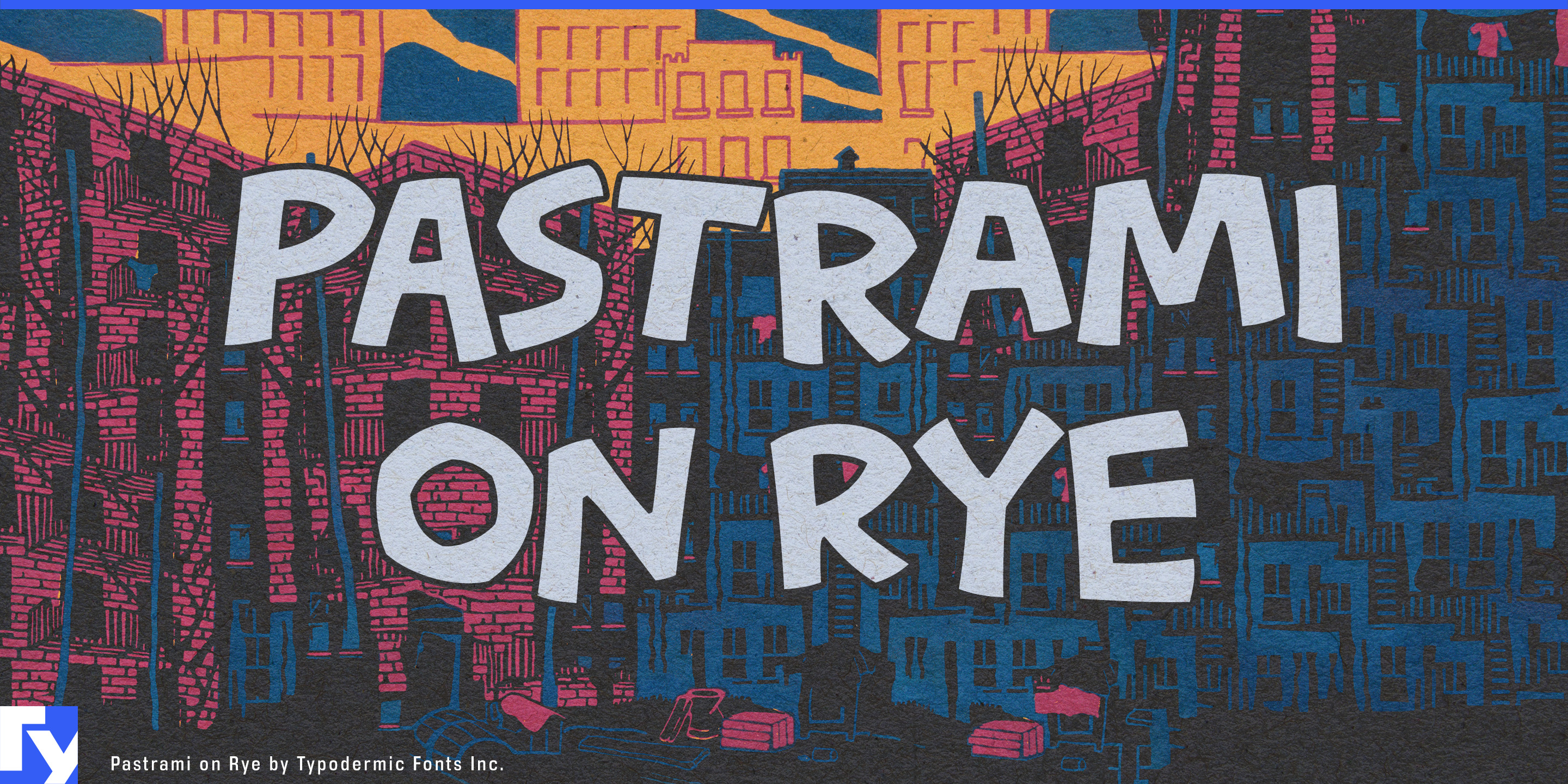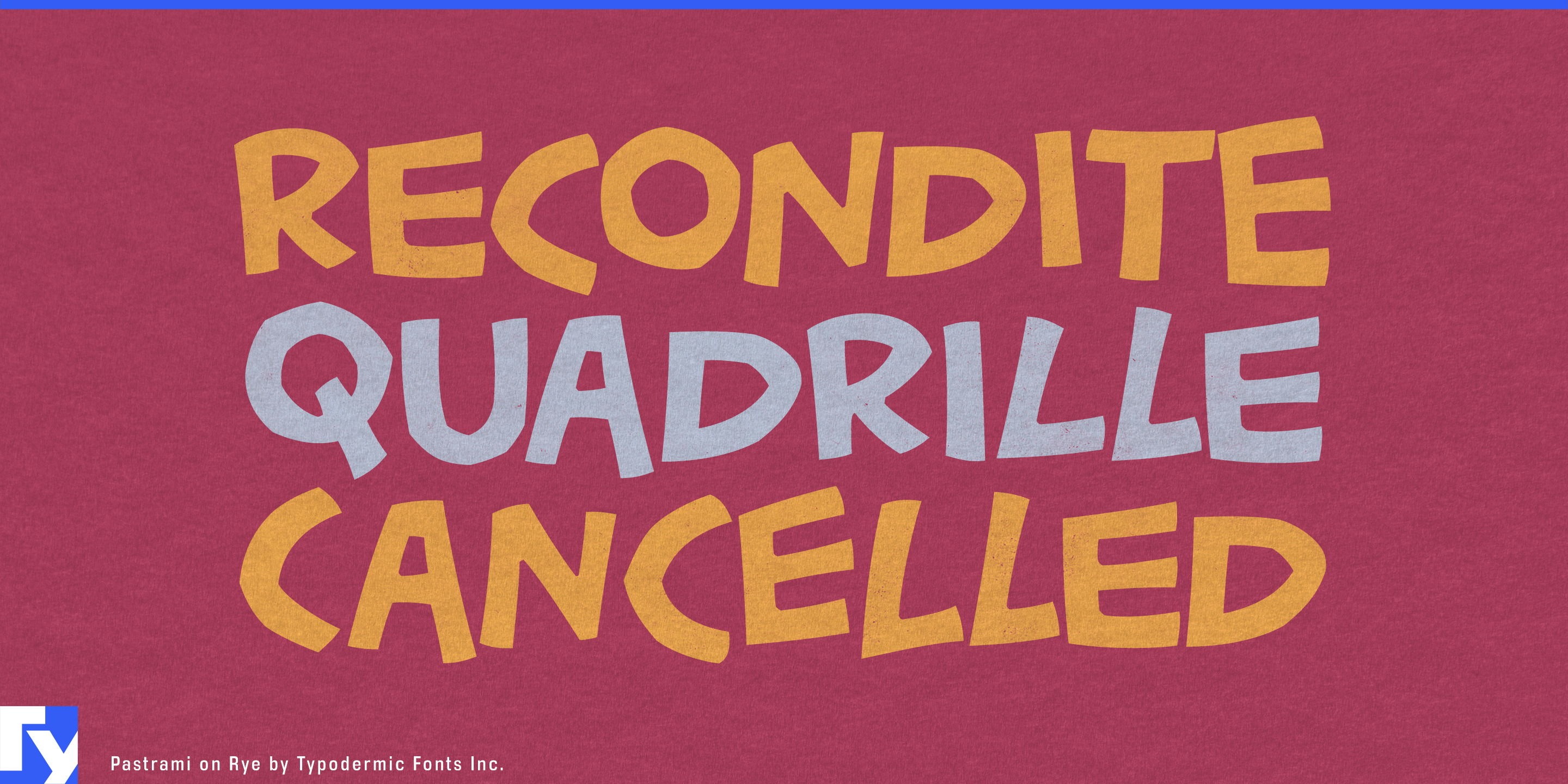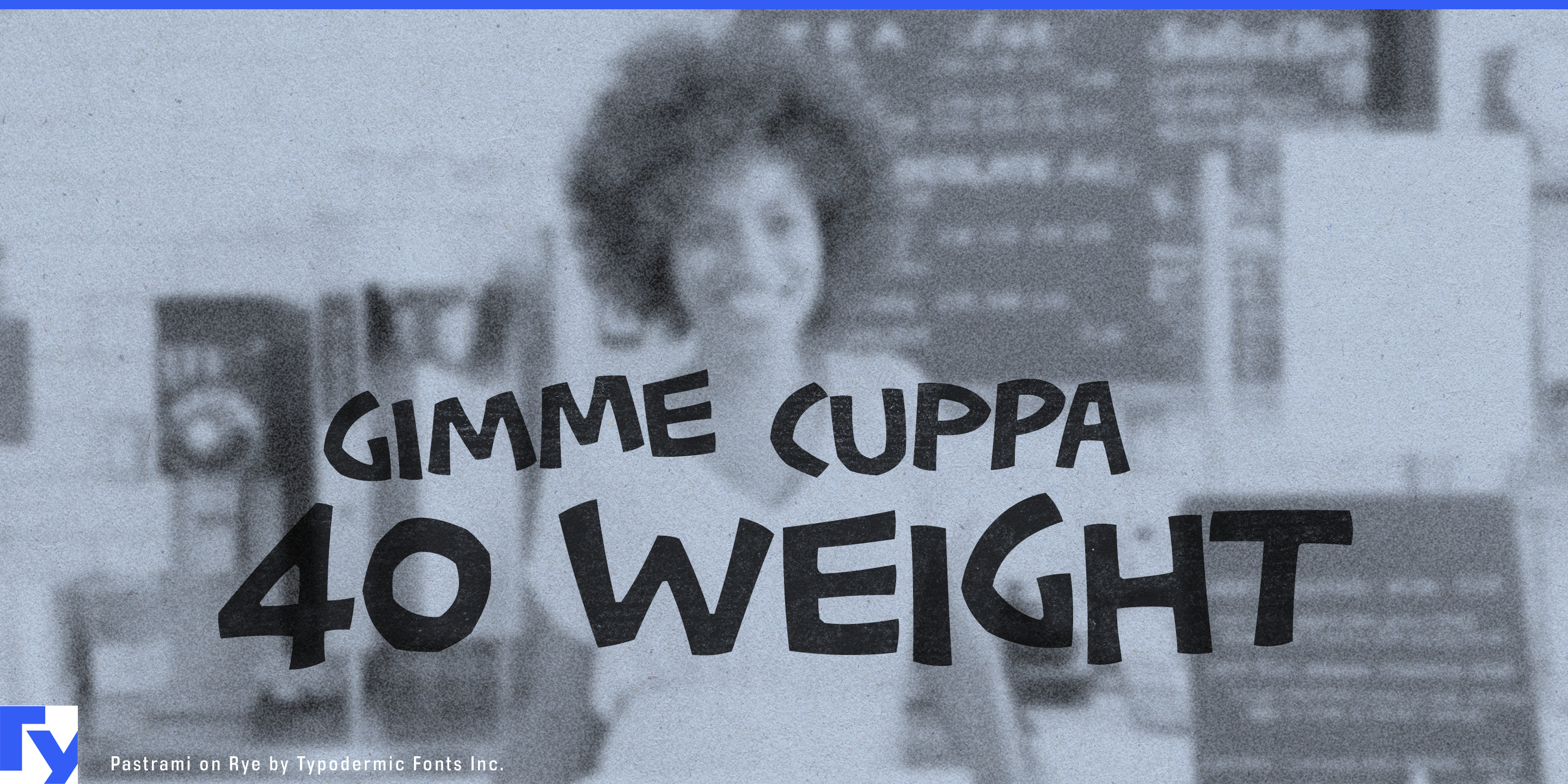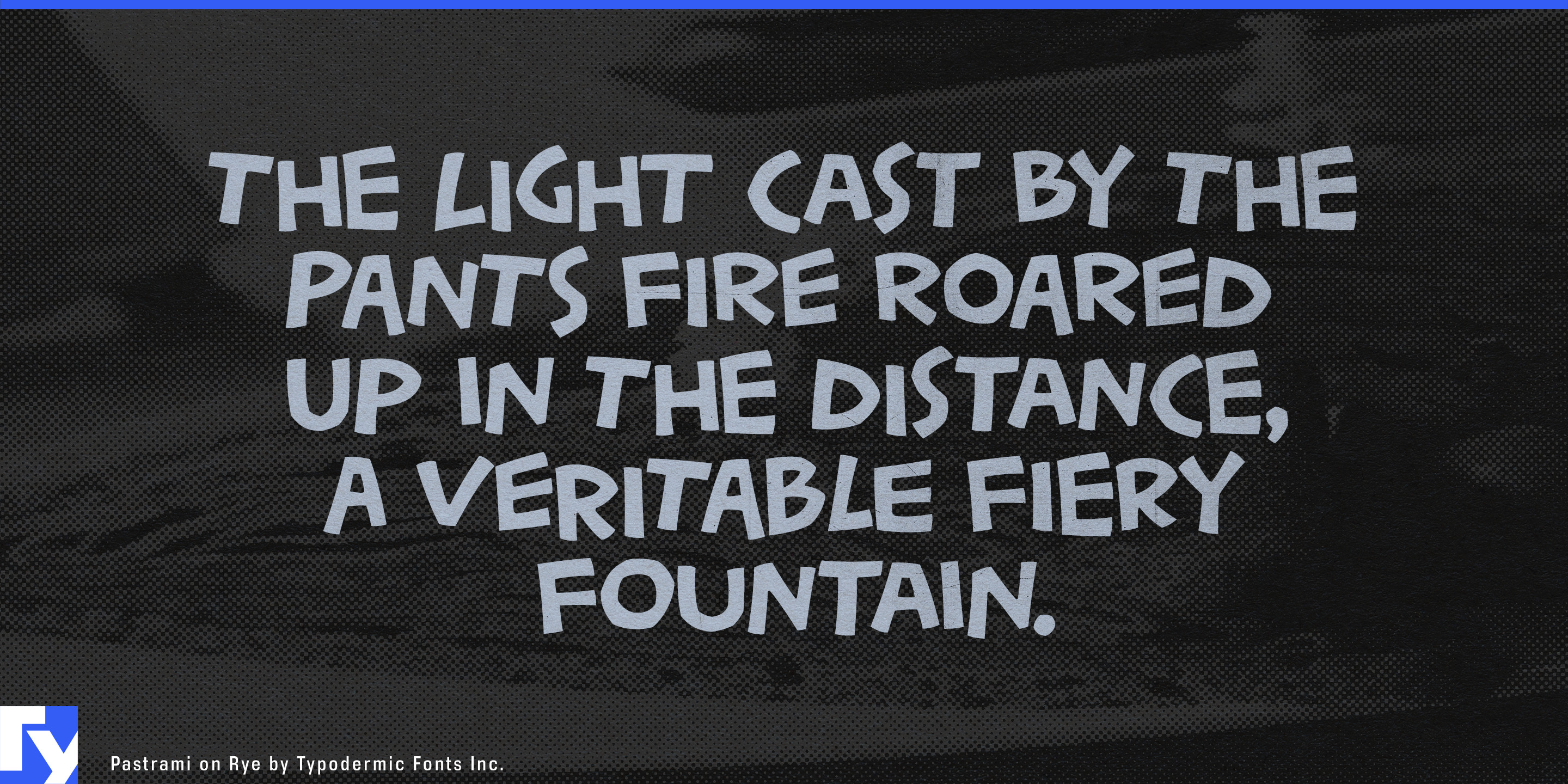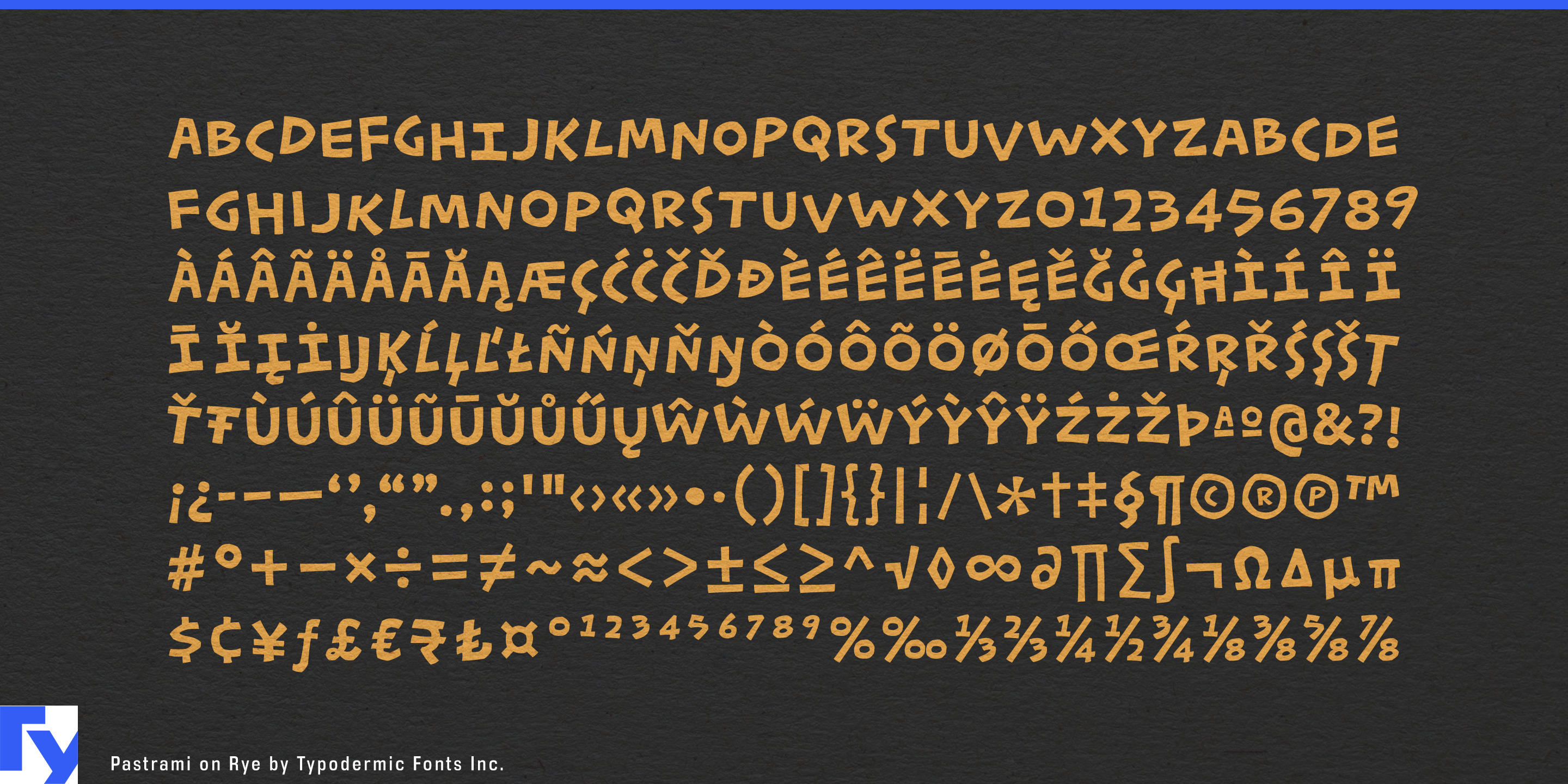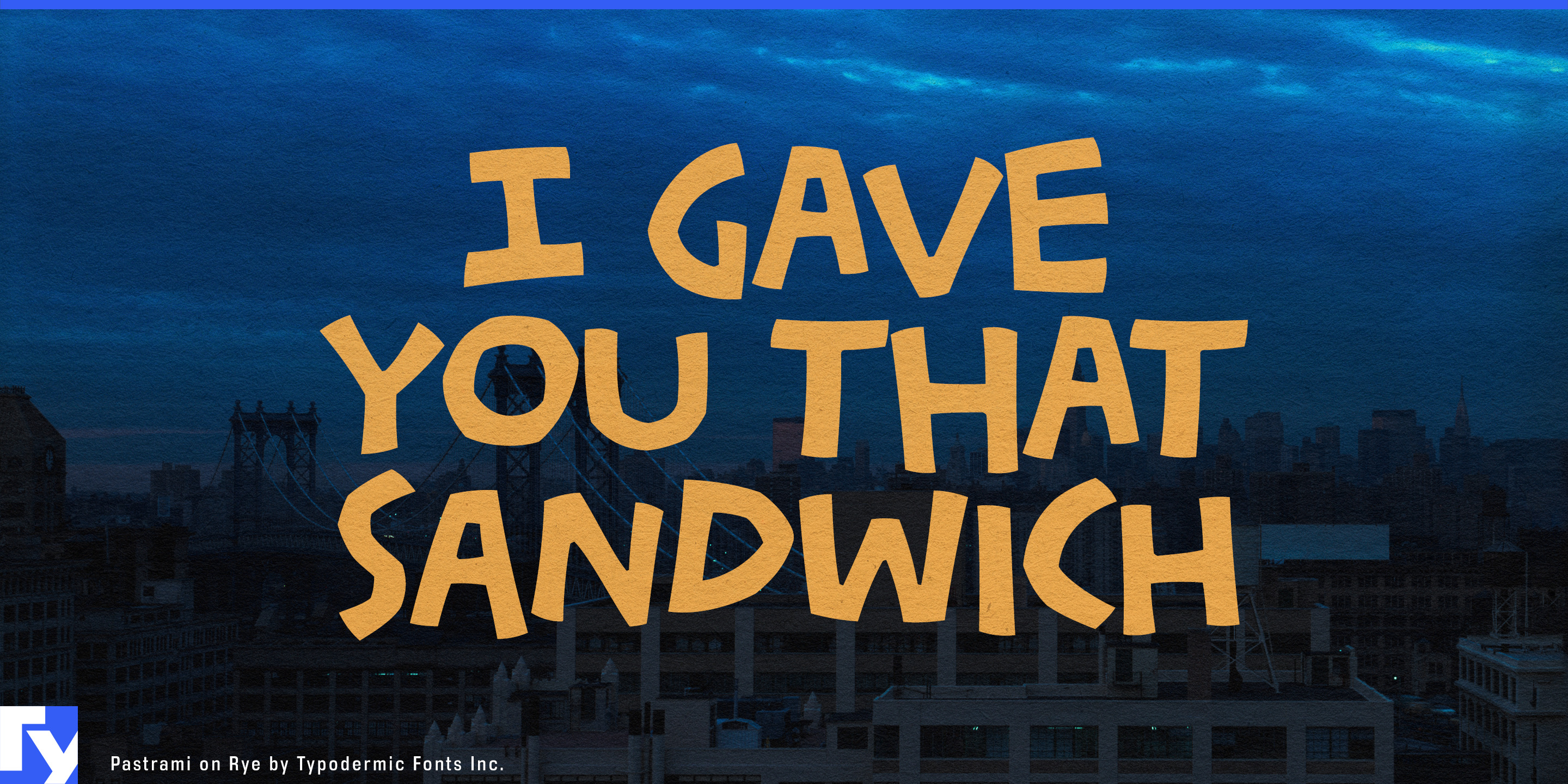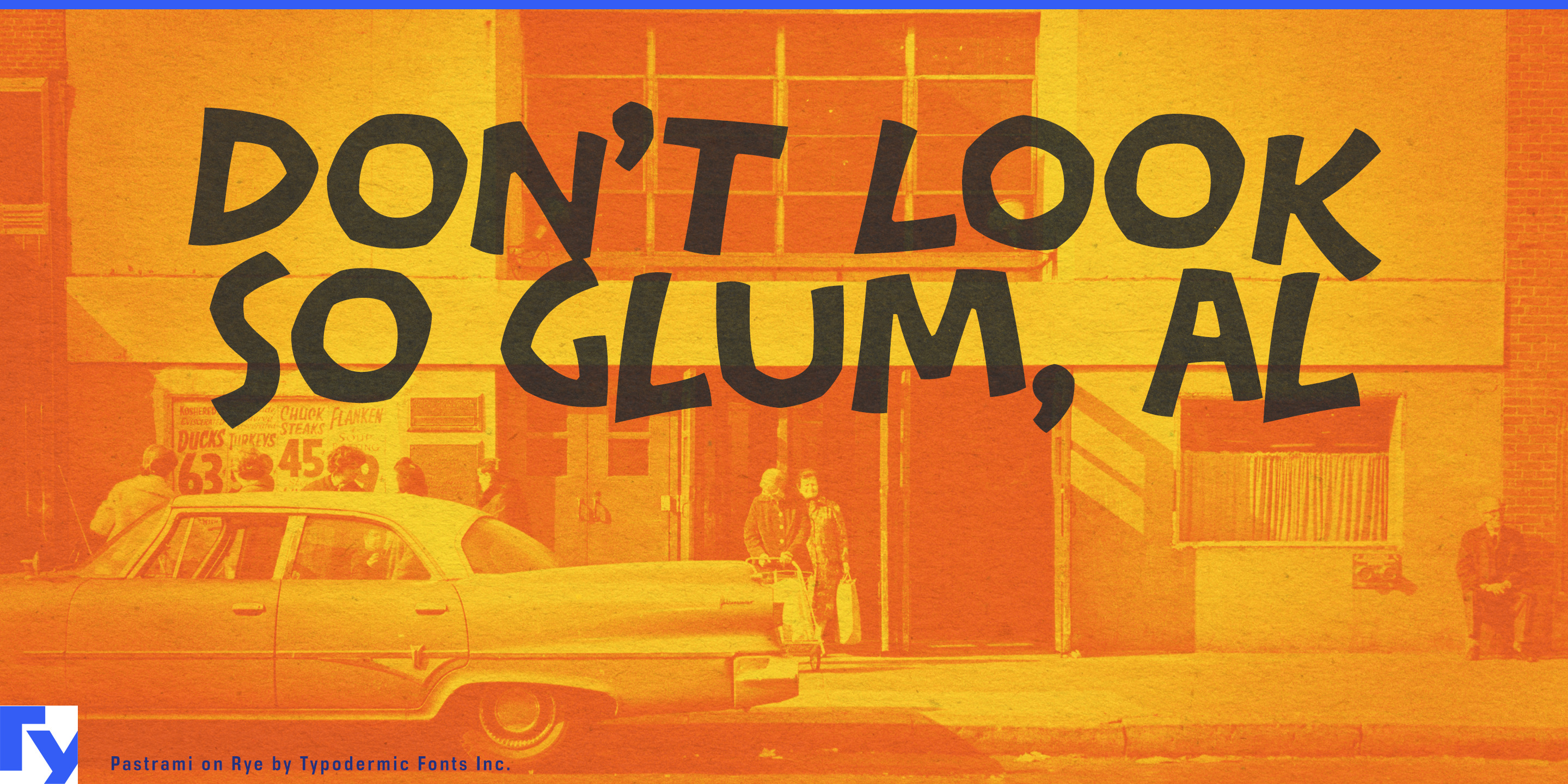
Pastrami on Rye
Handmade-looking typography becomes difficult the moment the words start changing. A designer can cut or collage a convincing title once; a sandwich chain, snack range, game, or animated series may need hundreds of menu items, flavors, specials, captions, and episode names. Ordinary irregular fonts quickly reveal identical repeated letters, while rebuilding every new phrase by hand becomes impractical. Pastrami on Rye solves that problem with rough-cut forms that resemble assembled felt or paper, plus automatic alternates that shuffle repeated letters and numerals to keep changing copy from looking mechanically duplicated.
That makes it especially useful for contemporary deli and bagel brands. Sandwich names, schmear flavors, daily specials, wall menus, bakery boxes, coffee cups, takeaway wrappers, tray liners, staff shirts, window graphics, and catering materials can share one tactile visual language without requiring every new item to be manually lettered. Fast-casual sandwich shops, focaccia and toastie concepts, soup-and-sandwich chains, and urban lunch brands can use the same system across menus, seasonal promotions, wrappers, and campaign headlines.
Packaged food is another strong territory, particularly where a range has many variants. Popcorn, tortilla chips, crackers, pretzels, puffed snacks, cookies, frozen treats, dips, and playful convenience foods can use Pastrami on Rye for flavor names, front-panel headlines, limited editions, and seasonal releases. Ice cream, gelato, doughnut, and bakery brands can extend the same handmade look across changing flavors and specials.
Pastrami on Rye began with a comic concept built around characters and lettering that looked physically cut from felt. That origin also makes it useful for stop-motion animation, collage-driven series, mixed-media comedy, tactile title sequences, and games with handmade art direction. Episode cards, character introductions, dialogue, quest names, item labels, location cards, achievements, and promotional graphics can stay inside the same constructed world even as the wording changes.
Museum interactives, science centres, maker exhibits, construction toys, creative STEM kits, family board games, and storytelling products benefit for similar reasons. Activity prompts, station names, packaging headlines, expansion titles, and instruction headings can look assembled from physical pieces without actually having to be rebuilt by hand.
Pastrami on Rye is most useful when a project needs the look of handmade lettering at a scale where handmade lettering stops being practical. The cut-felt character establishes the tactile mood; the automatic shuffling helps the illusion survive the hundredth new word as well as the first.